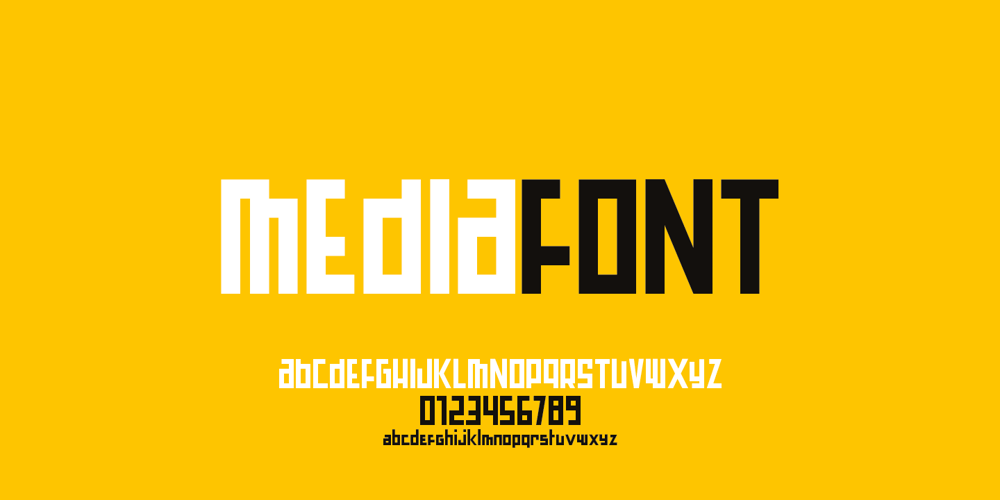
Mediafont Font Family was designed by Ewen Prigent and published by La Boîte Graphique. Mediafont contains 2 styles and family package options. Mediafont is a modern geometric font ideal for titration, branding, poster.